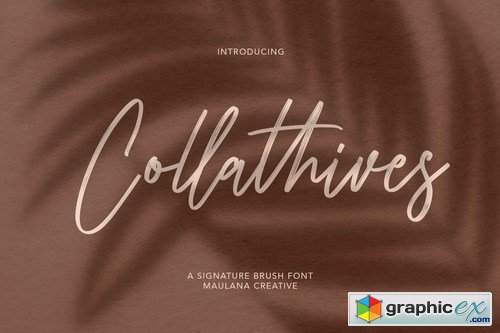
Collathives Signature Brush Font
Collathives is a signature brush font with extra lowercase alternate, and opentype features. It support multilingual more than 100+ language. This font is suitable for logo design and any awesome project you create. Make stunning work with Collathives signature font.